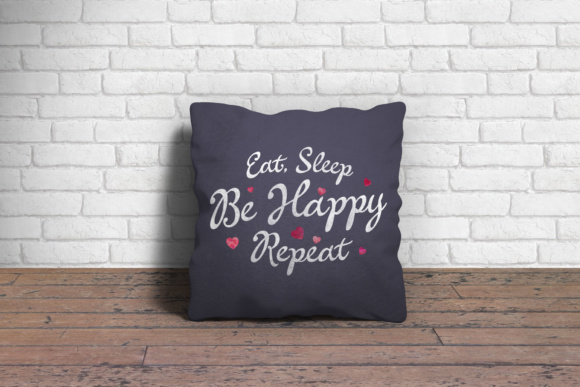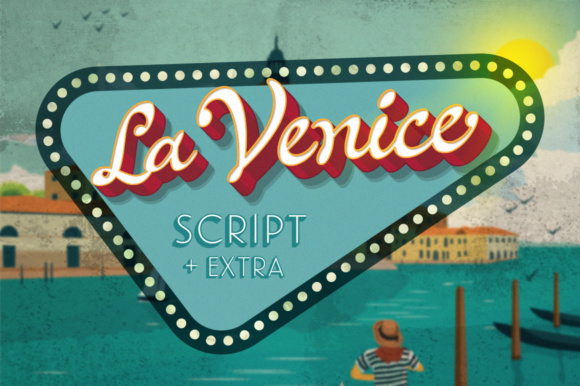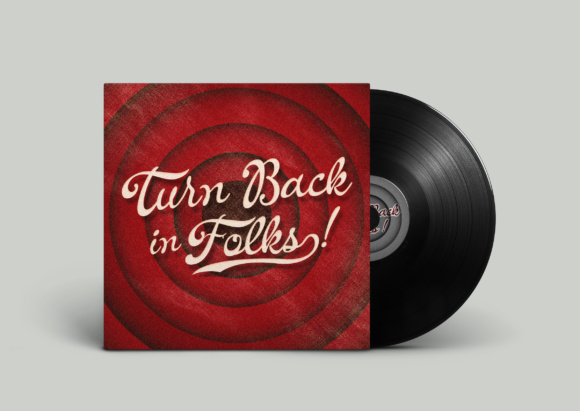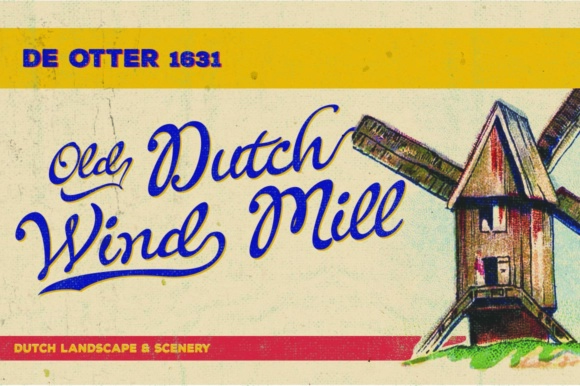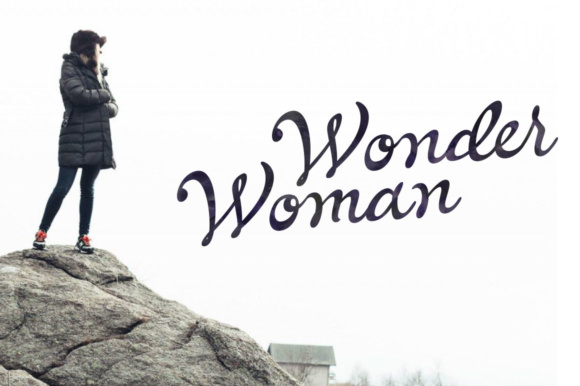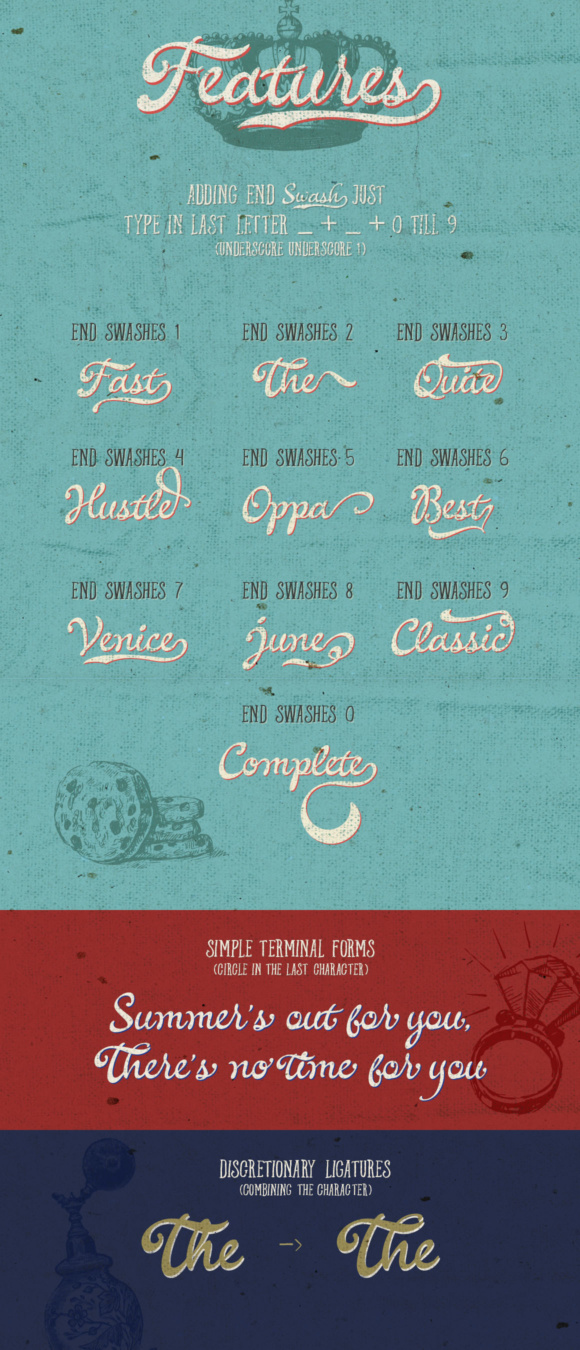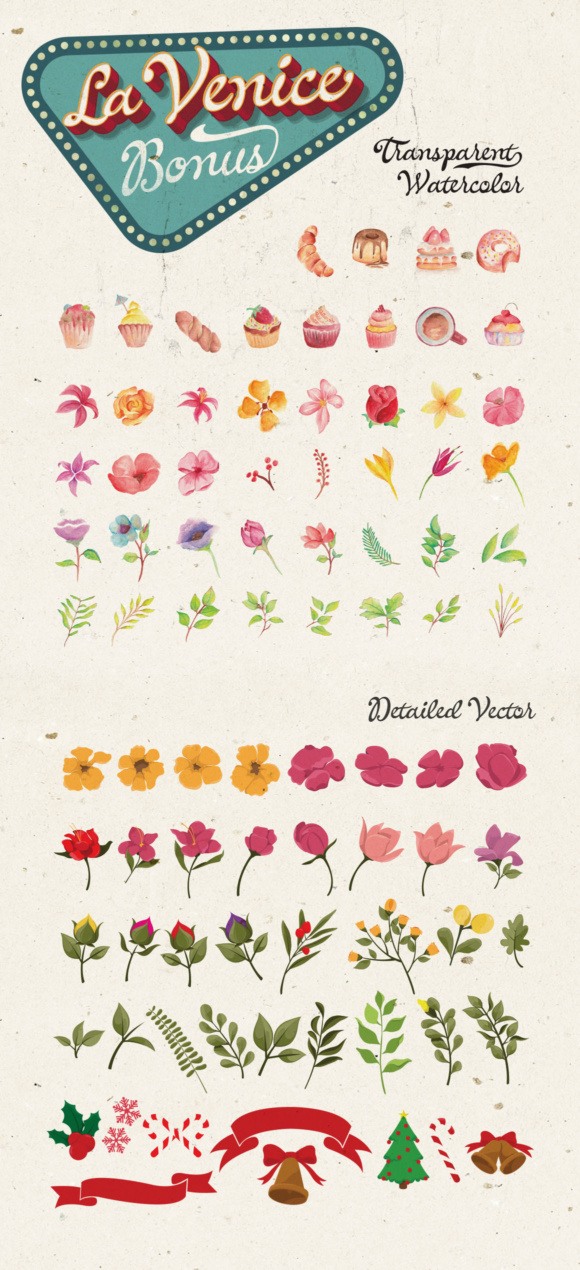
La Venice Font
About La Venice Font
La Venice equal parts modern and vintage; this beautiful calligraphy script creates the impression of free form lettering, and is made to be a standout display. This download also comes with bonus illustrations so you can make designs that are fully realized and stylish.